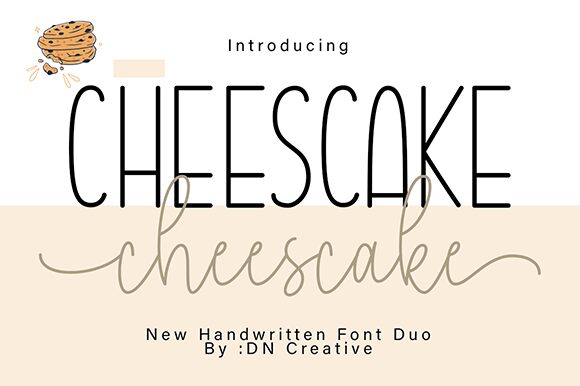
Cheescake Monoline
Cheescake Monoline font is a light, handwritten typeface by DN Creative that balances casual elegance with an artistic feel. Its signature-like quality offers an elegant and flowing aesthetic, perfect for bringing a personal touch to any design project. The font captures the charm of handwriting in a refined yet effortless way.